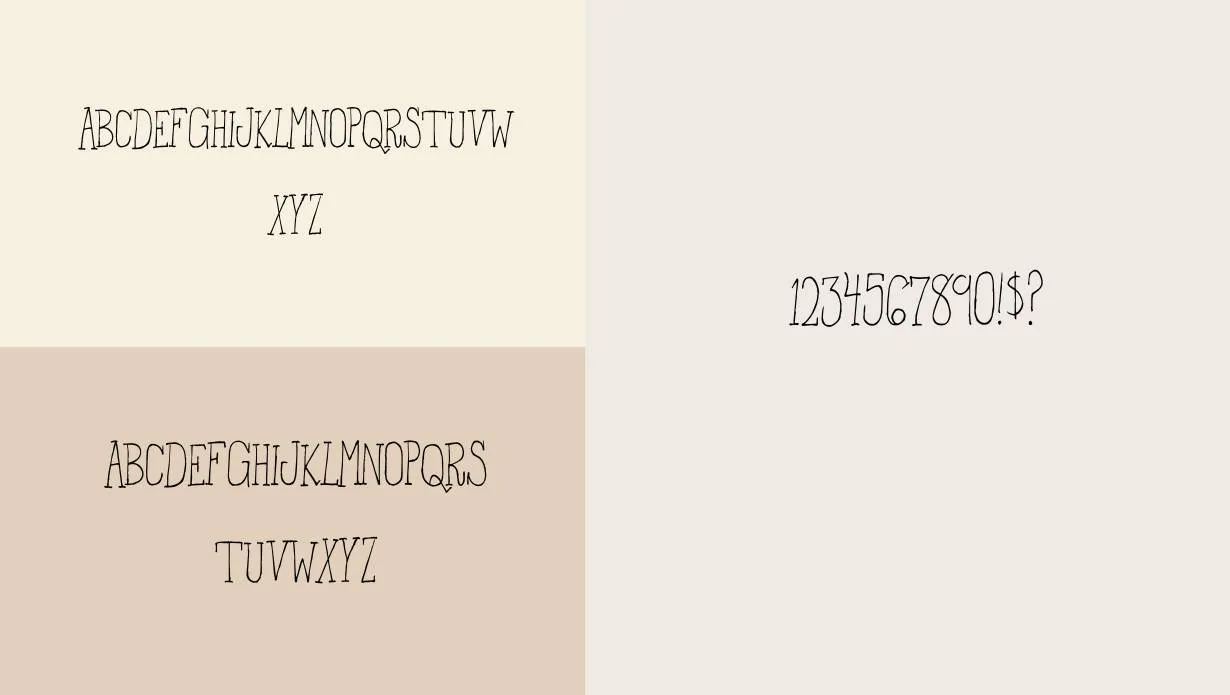
Font captures the essence of nature with its rustic and organic design. Ideal for projects related to the outdoors, eco-friendly themes, or anything that needs a touch of earthiness, this font brings a sense of warmth and authenticity.
Its weight and width are crafted to resemble the natural flow of handwritten text, making it versatile for a range of applications. In the Wood Font adds a down-to-earth charm to your design projects.
| Name | In the Wood Font |
| Designer | Simon Stratford |